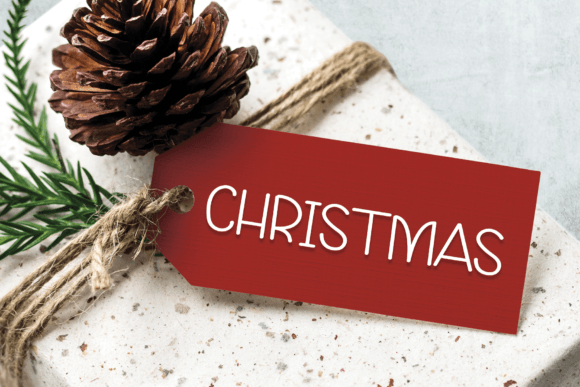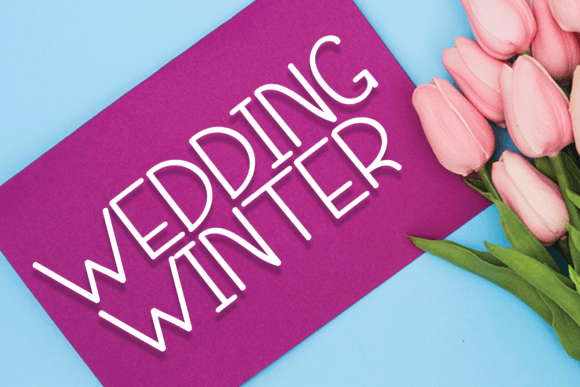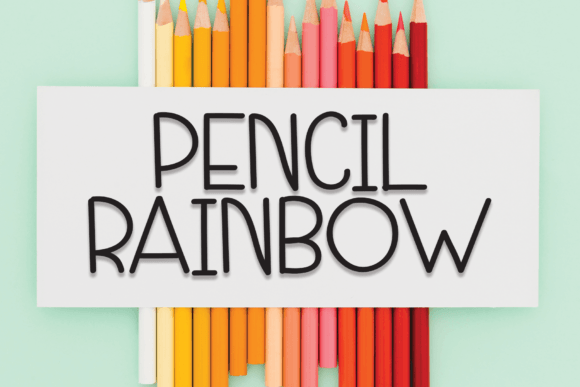
Stay Home Handwritten Font – Fun and Friendly Typeface
The Stay Home Handwritten Font is a cheerful and approachable typeface designed to bring joy and warmth into your creative projects. With its casual handwritten strokes, it adds a personal and playful feel that works across both digital and print designs. Whether you are creating crafts, greeting cards, or social media content, this font delivers charm and usability.
A Playful Handwritten Style
The Stay Home Handwritten Font captures the natural energy of handwriting while keeping designs clean and readable. Its smooth curves and balanced letterforms make it ideal for projects that require personality without sacrificing clarity. Designers appreciate its ability to give text a handcrafted, unique look.
Perfect for Greeting Cards and Crafts
This typeface is especially effective for personal projects like thank-you notes, invitations, and seasonal cards. The Stay Home Handwritten Font brings warmth and sincerity to handmade crafts and DIY projects. Its playful style ensures your text stands out in a friendly and memorable way.
The Stay Home Handwritten Font adapts beautifully to multiple uses, from posters and presentations to product packaging and branding. Its fun yet elegant look makes it suitable for both casual and professional projects, ensuring versatility across a wide range of applications.
Why Designers Love Stay Home Font
Designers often look for fonts that balance charm and usability, and the Stay Home Handwritten Font does just that. Its friendly strokes make it perfect for creative work, while its readability ensures it performs well in everyday projects too. This makes it a valuable addition to any font library.